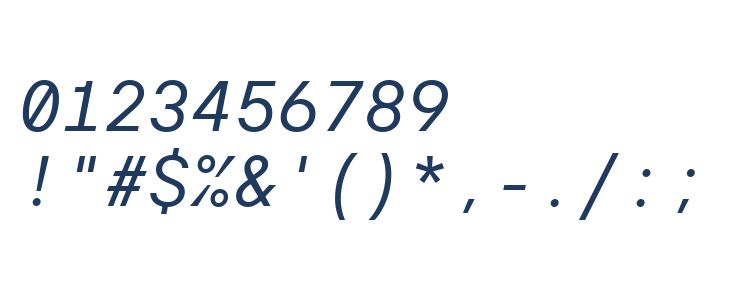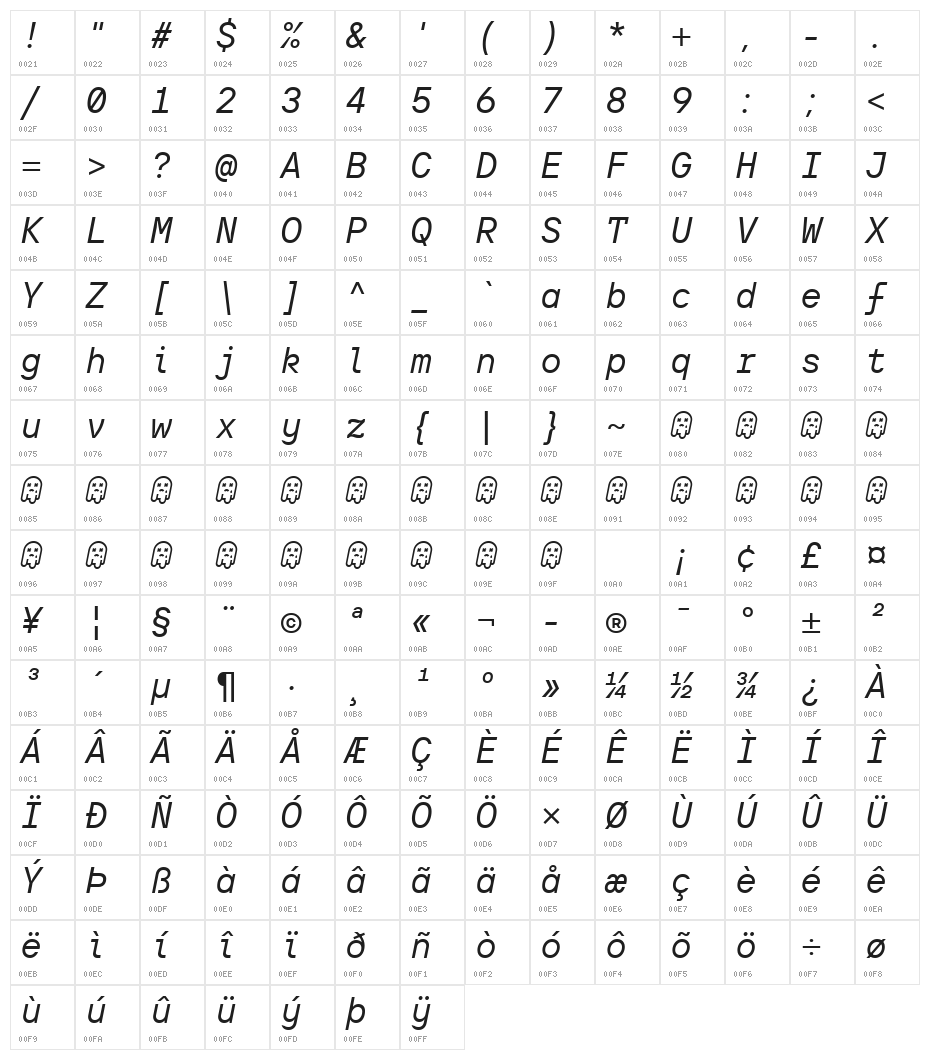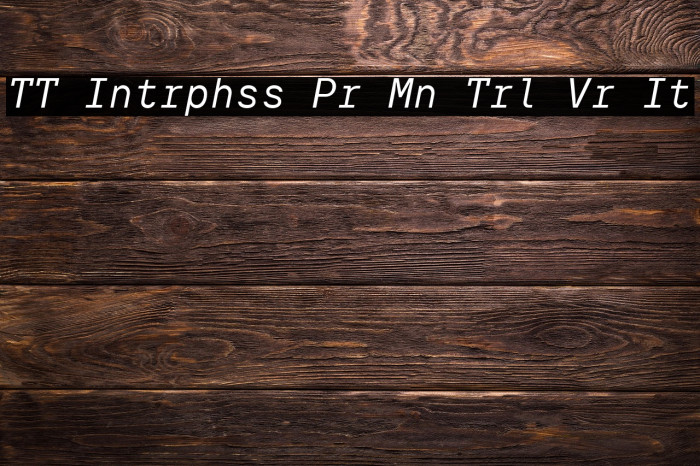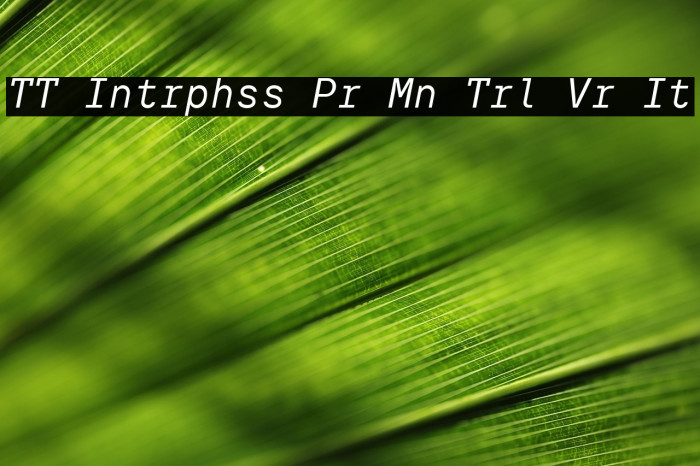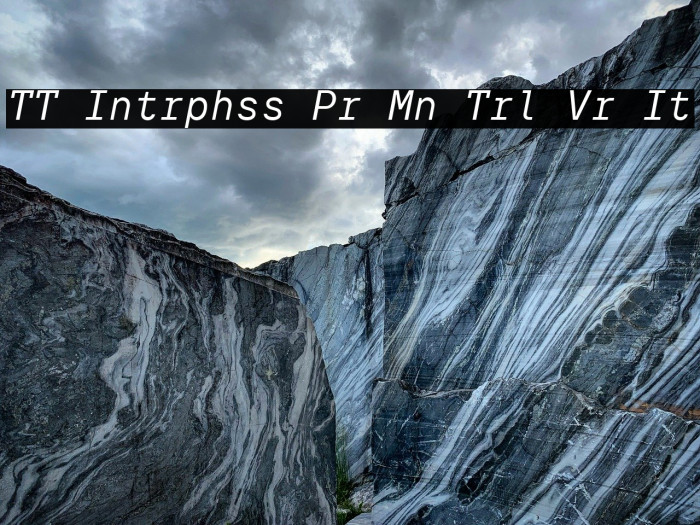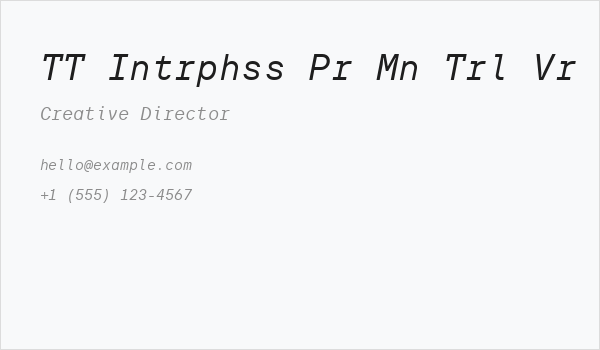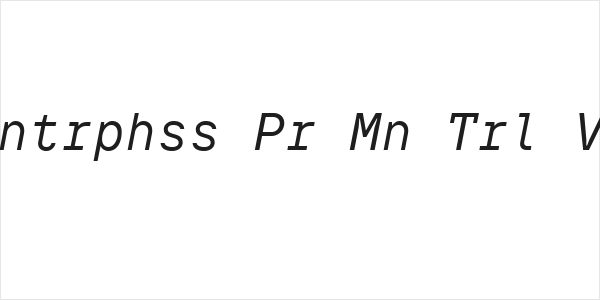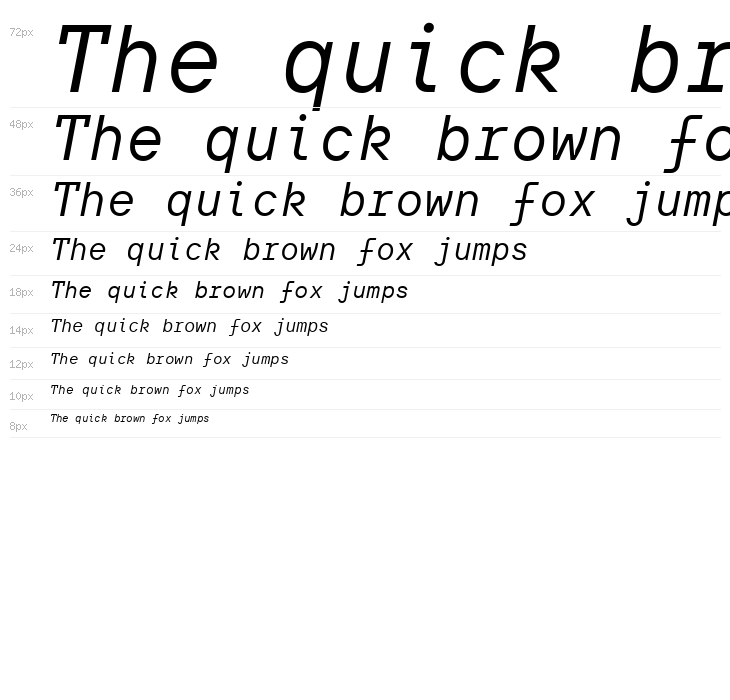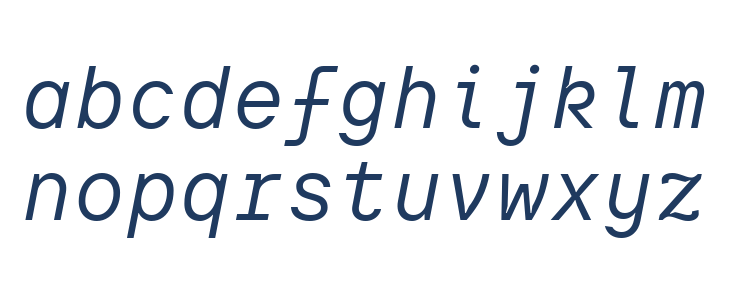
TT Intrphss Pr Mn Trl Vr It Font
TT Intrphss Pr Mn Trl Vr It Description
This font features a clean and modern sans-serif design with a slight italic slant, giving it a dynamic and contemporary appearance. The characters are well-proportioned with a consistent stroke width, providing a uniform and balanced look. The uppercase letters are bold and assertive, while the lowercase letters maintain a friendly and approachable style. The numerals are clear and easy to read, making them suitable for various applications. Special characters are well-integrated, ensuring versatility in design projects.
| Proposed Projects | Ideal for branding, editorial design, web design, and advertising materials. |